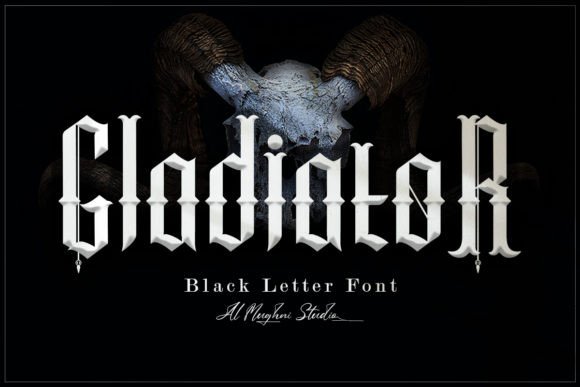
Enter the world of GladiatoR, a captivating blackletter font that will unleash your creative gladiator spirit. This bold and thick lettered font exudes strength and power, making it the perfect choice for creating designs that demand attention.
Unleash your inner warrior and let GladiatoR's captivating curves and sharp edges bring your words to life. Whether you're designing logos, posters, headlines, or social media graphics, GladiatoR will add an aura of intrigue and mystery to your creations.
With GladiatoR, you'll conquer the design battlefield, leaving your audience in awe. Dare to be different and make a statement with this extraordinary font. Let GladiatoR be your weapon of choice as you craft designs that resonate with power and leave a lasting impression.